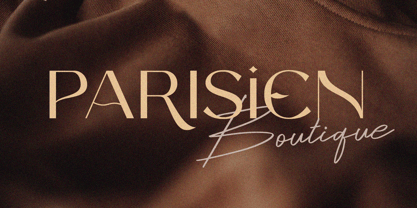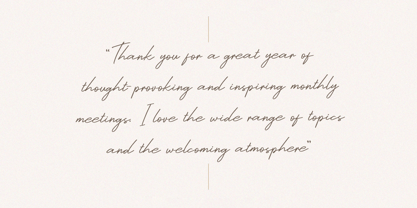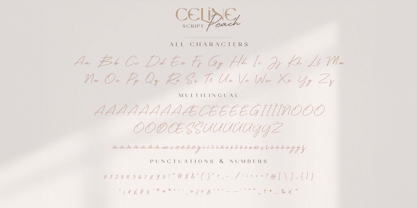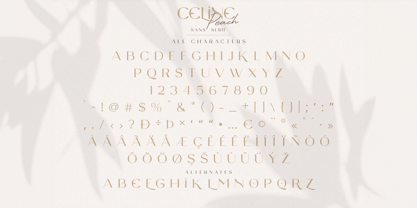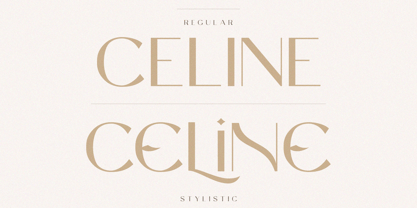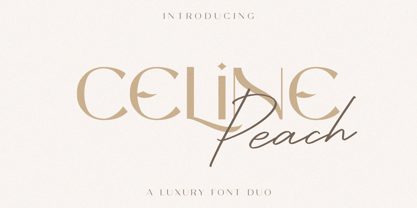
Celine Peach Script
by Craft Supply Co
The Celine Peach Script Font Family was designed by Trio Nazzar Saputra, Wahyu Hadi Yuana and published by Craft Supply Co. Celine Peach Script contains 2 styles and family package options. More about this family
Introducing New Font : Celine Peach – A Luxury Font Duo
Celine Peach – A Luxury Font Duo is a combination of an elegant sans serif font & beauty handwritten script font based on the expression of real handwriting. Celine Peach – A Luxury Font Duo will work perfectly for fashion, e-commerce brands, trend blogs, wedding boutiques or any business that wants to appear upscale and chic.
Celine Peach – A Luxury Font Duo also Suitable for Logo, greeting cards, quotes, posters, branding, name card, stationary, design title, blog header, art quote, typography, art, modern envelope lettering or book design, happening style like handdrawn design or watercolor design theme, craft design, any DIY project, book title, or any purpose to make your art/design project look pretty and trendy.
Designers: Trio Nazzar Saputra, Wahyu Hadi Yuana
Foundry: Craft Supply Co